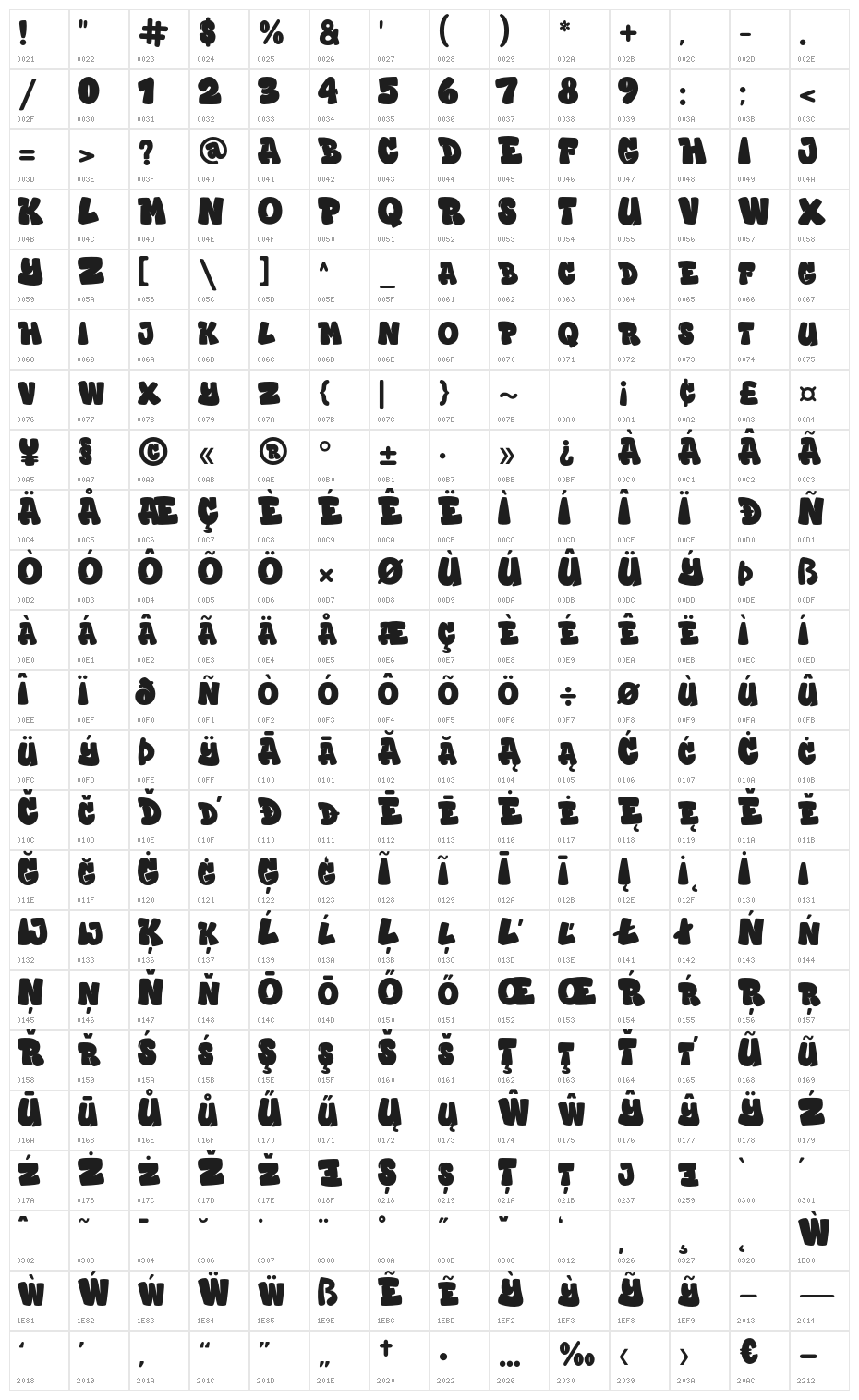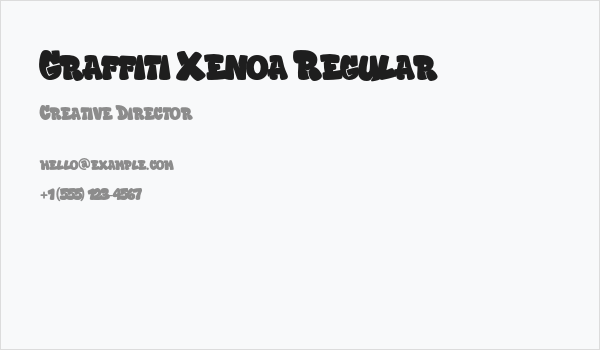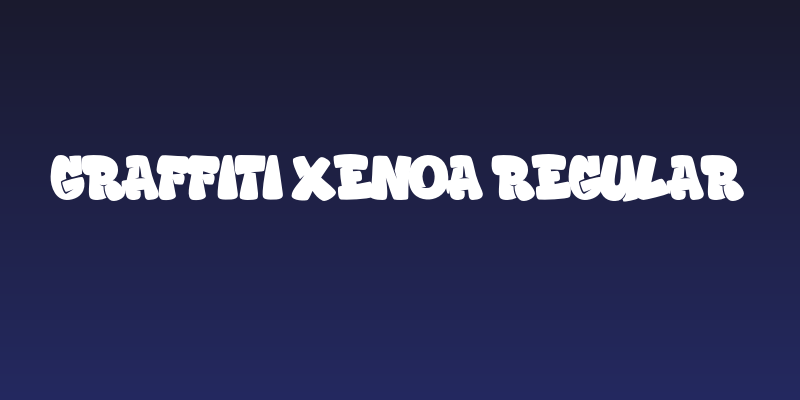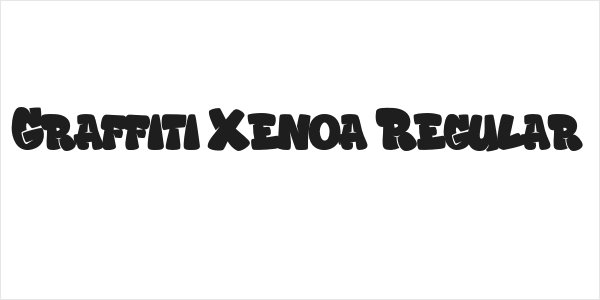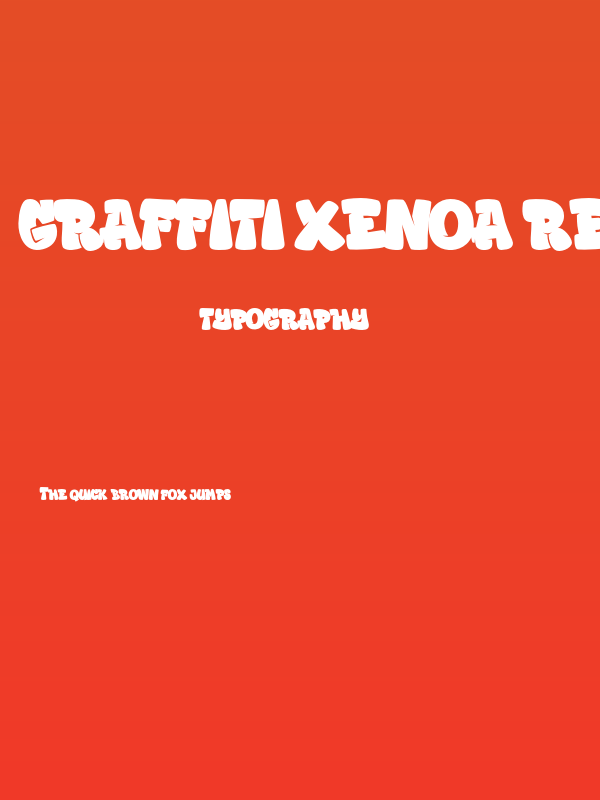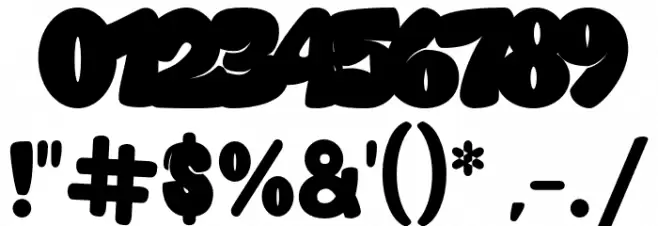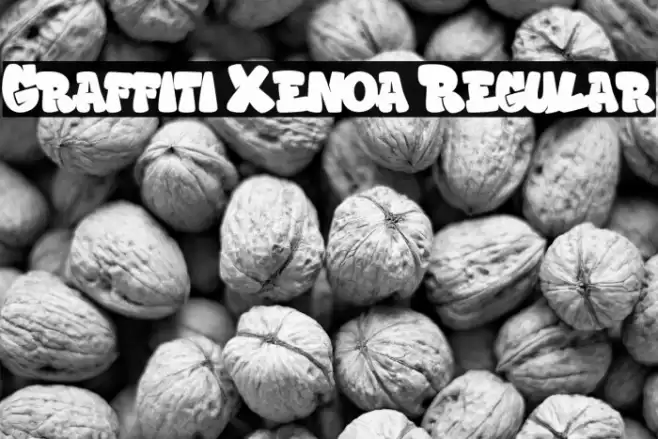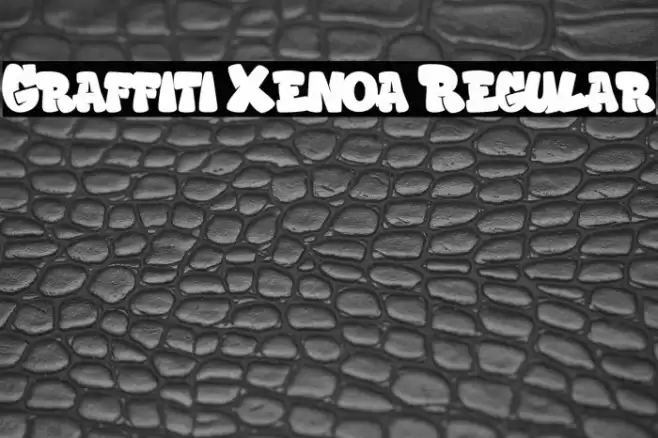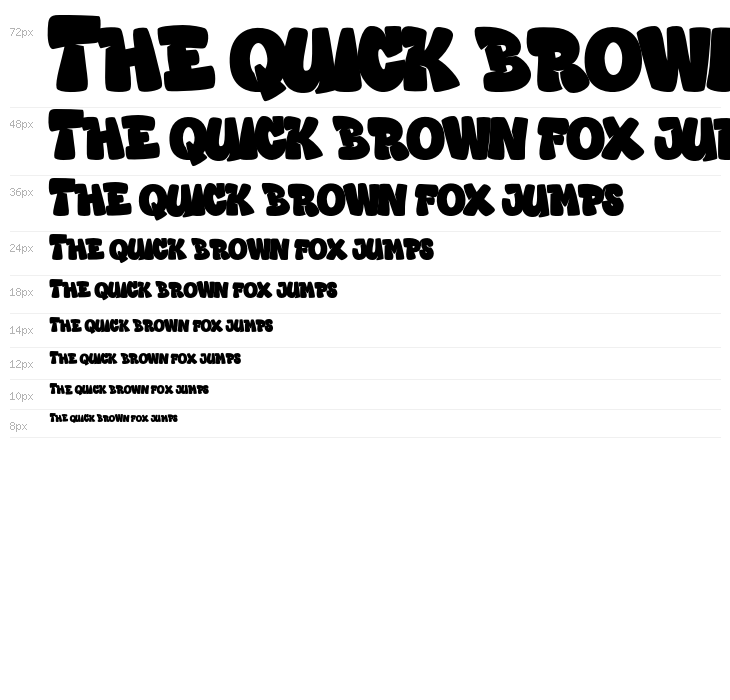
Graffiti Xenoa Regular Font
Graffiti Xenoa Regular Description
This font is characterized by its bold, rounded, and playful style, reminiscent of graffiti art. The letters are thick and have a bubbly appearance, creating a sense of movement and energy. The uppercase and lowercase letters maintain a consistent style, with exaggerated curves and a slightly informal look. Numbers and special characters follow the same design principles, ensuring a cohesive appearance across all glyphs. This font is designed to stand out and make a statement, perfect for creative and artistic projects.
| Proposed Projects | Ideal for street art designs, urban-themed posters, music album covers, and creative branding projects. |